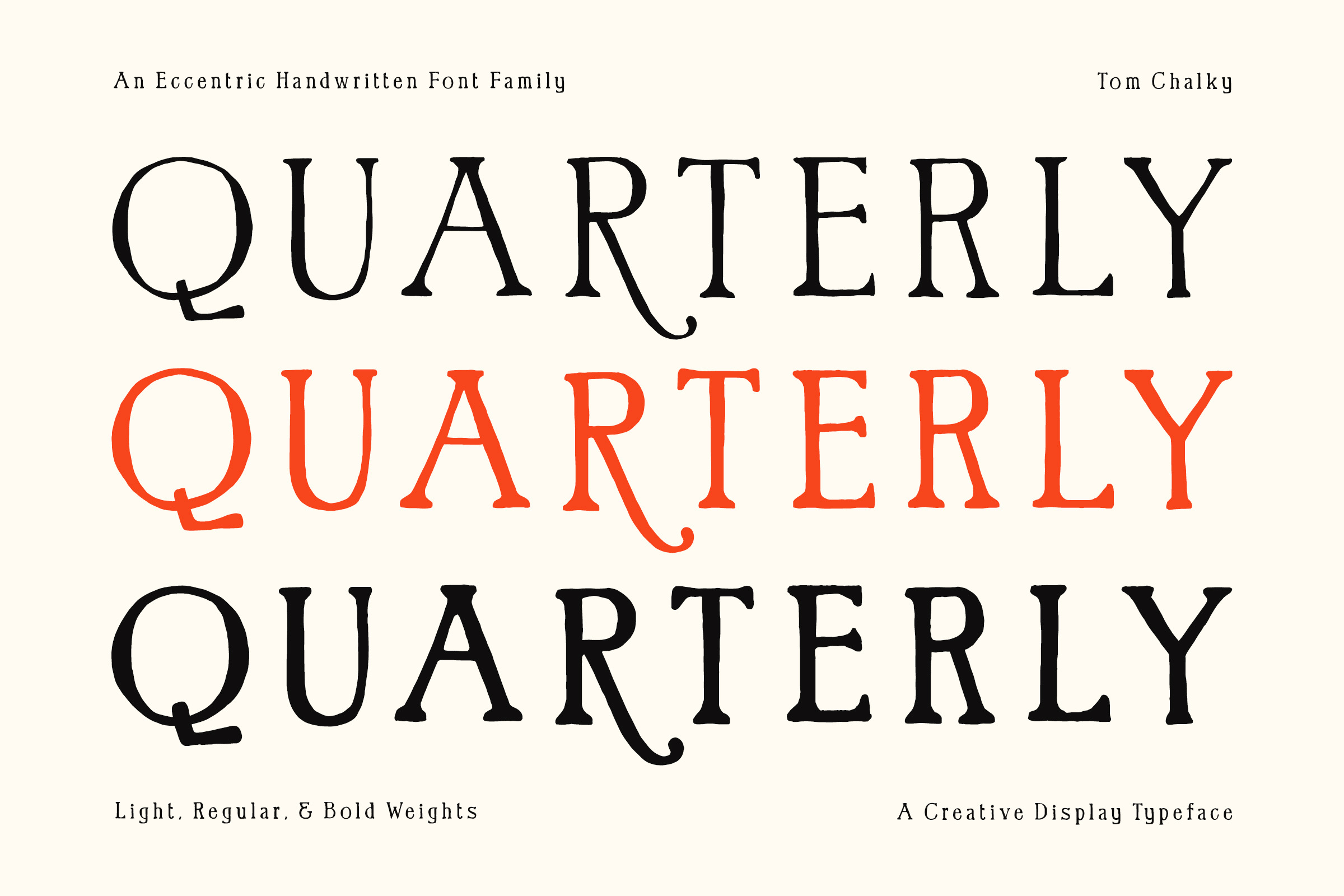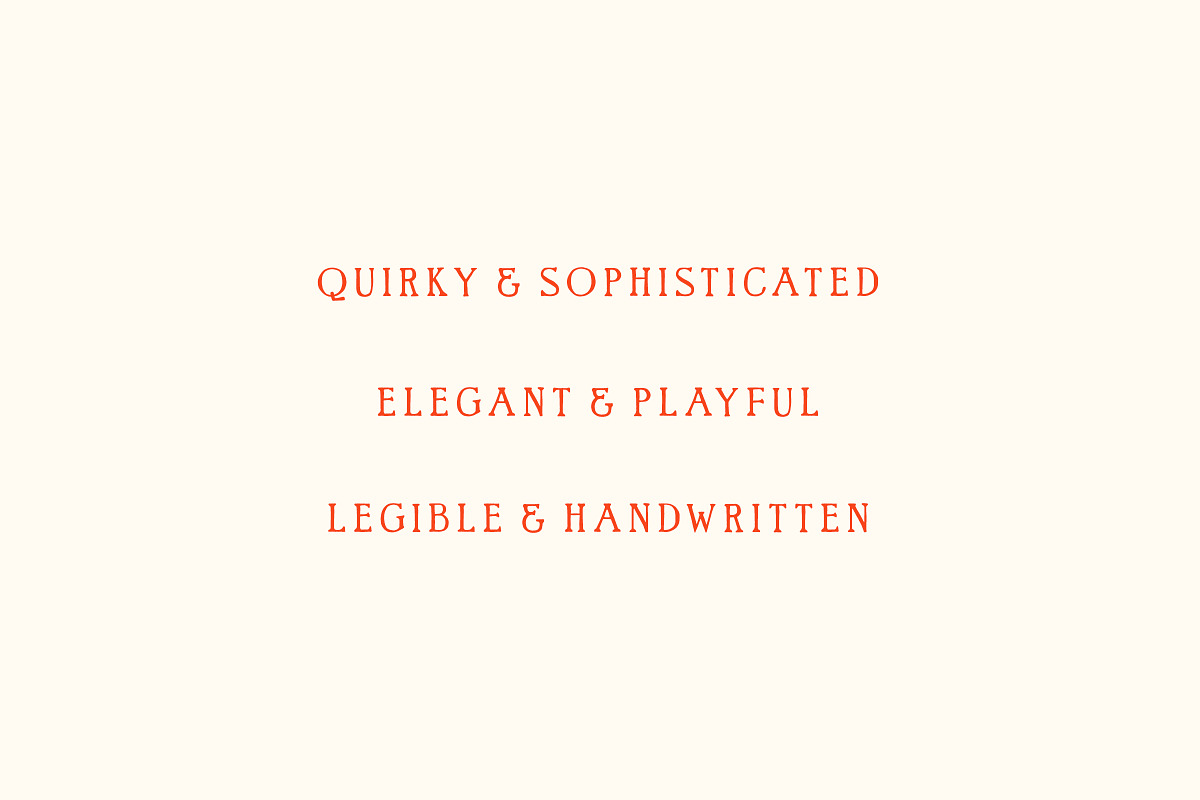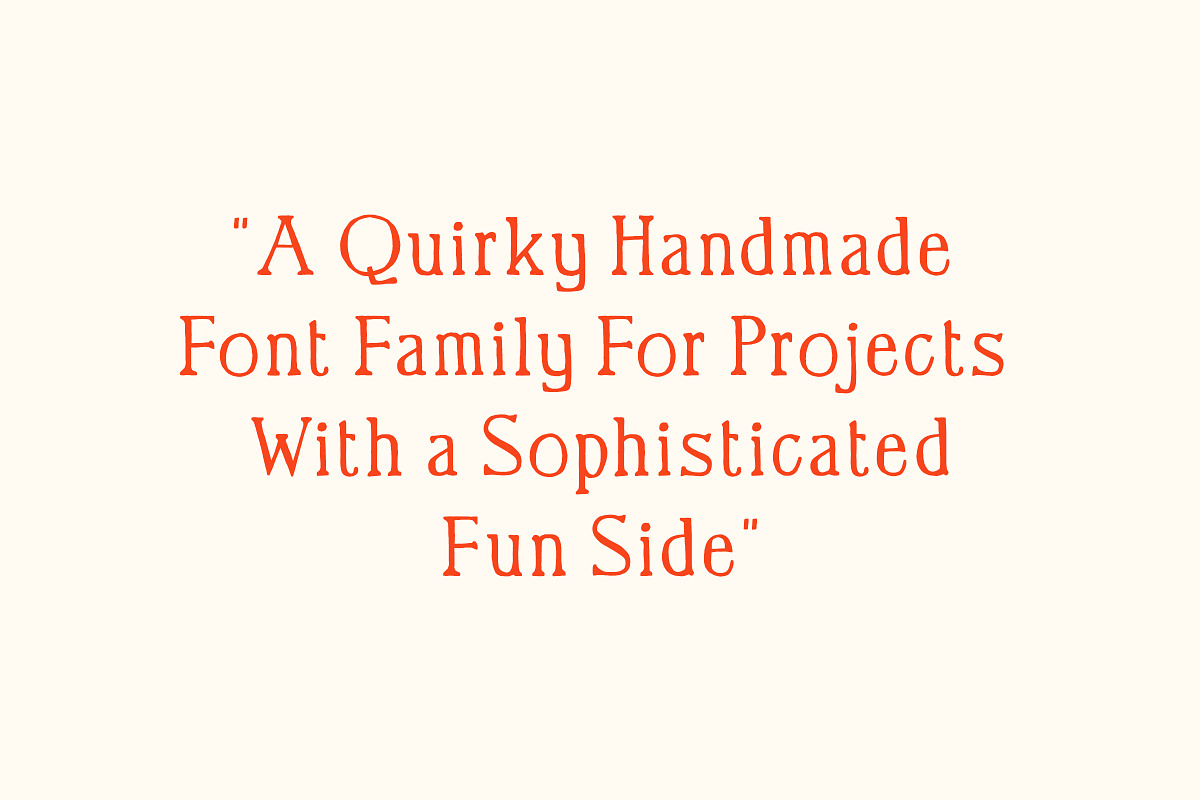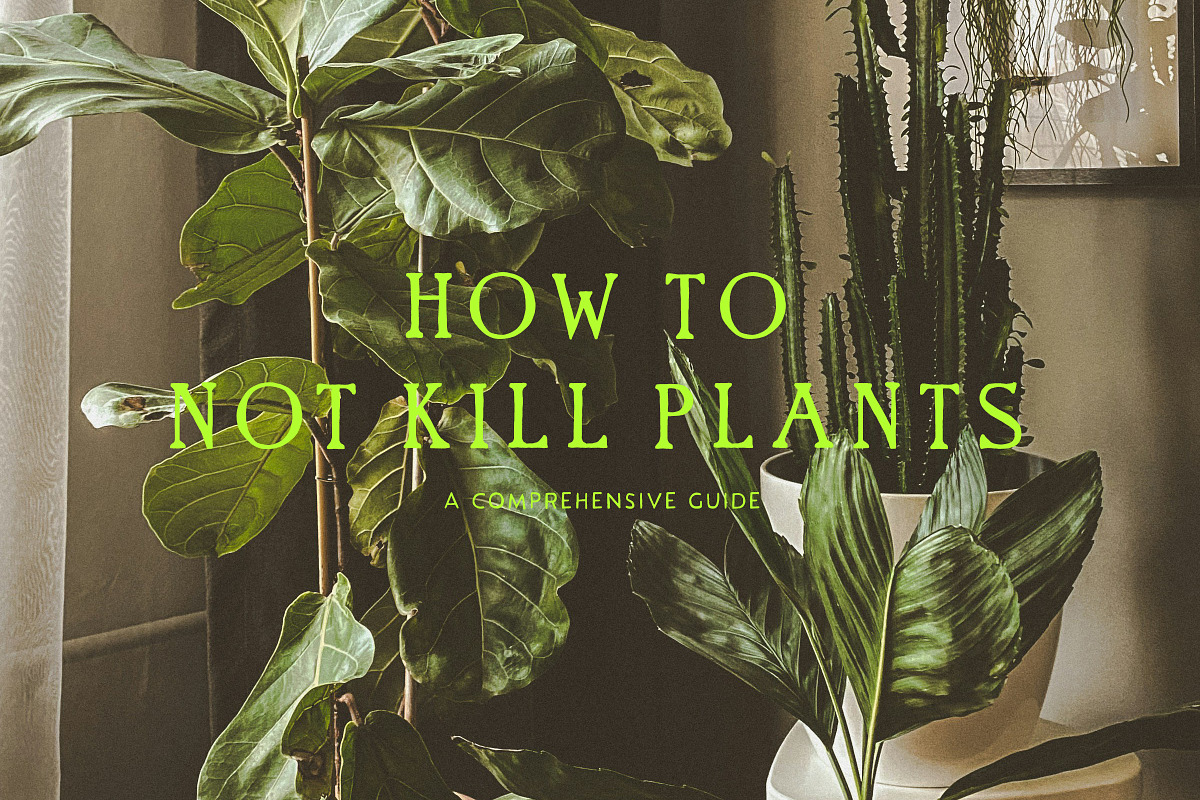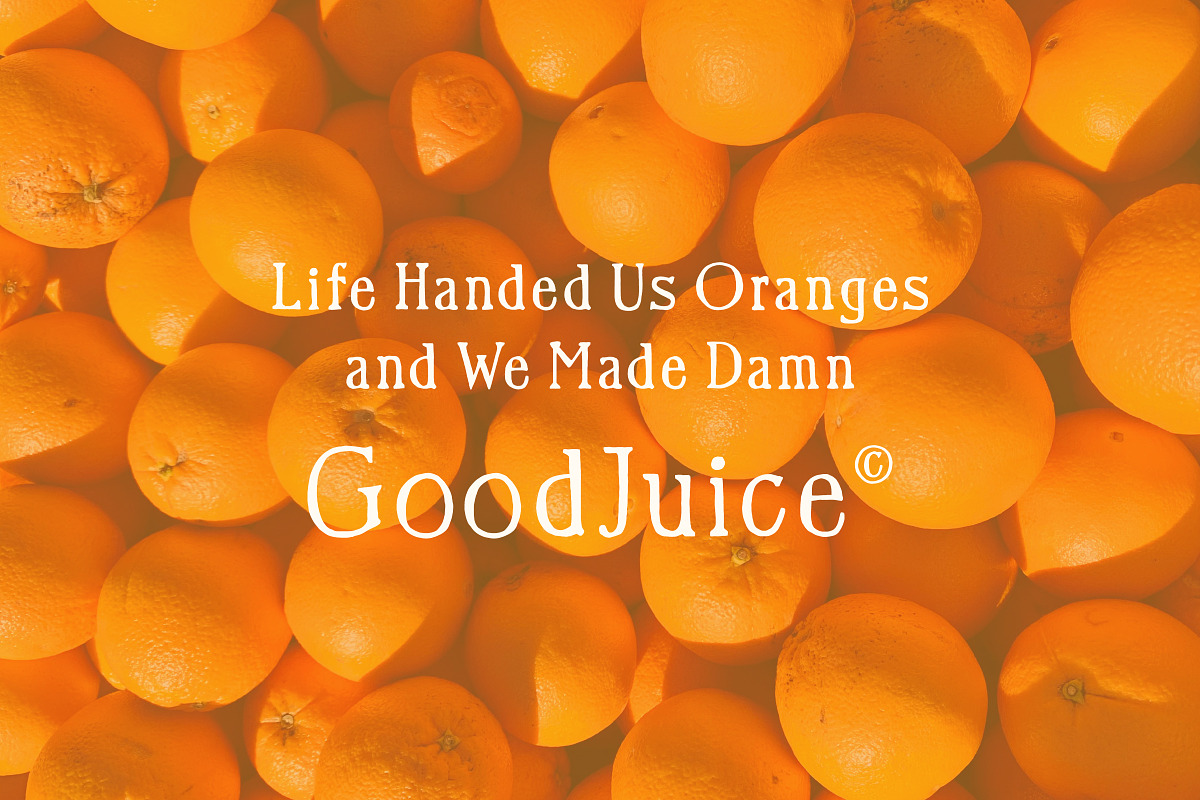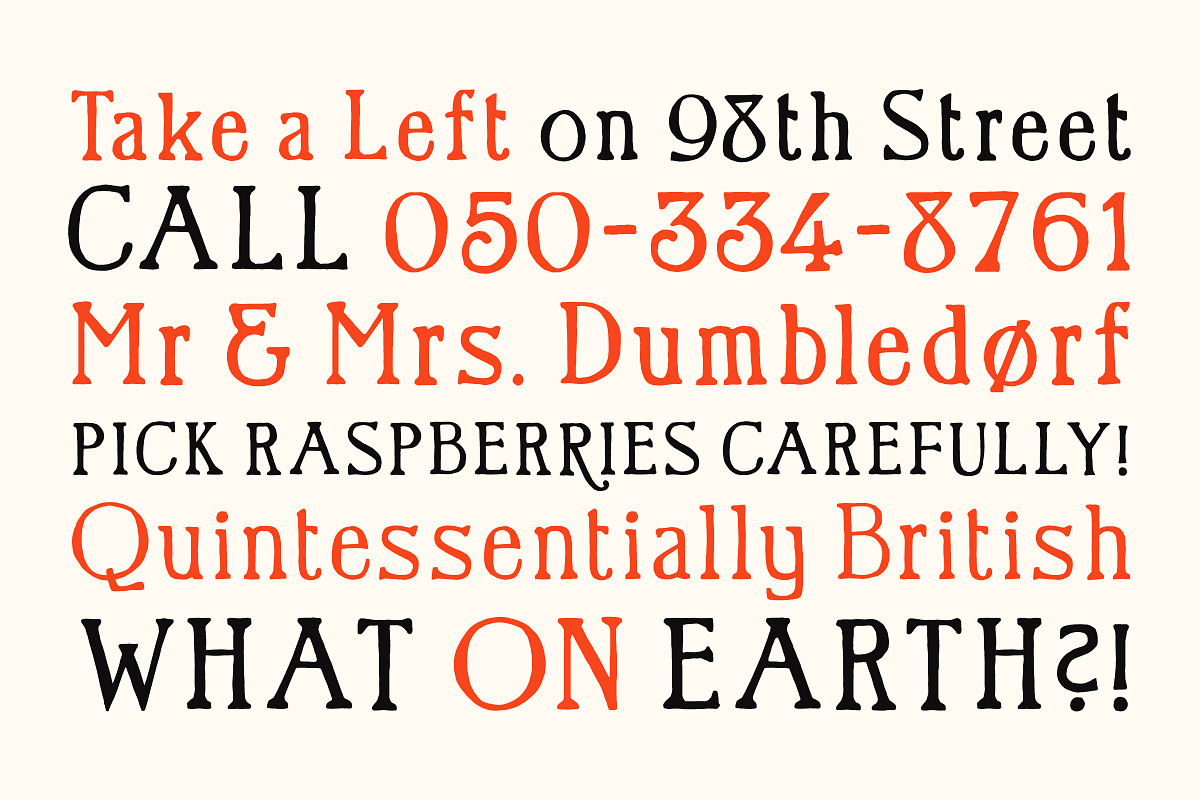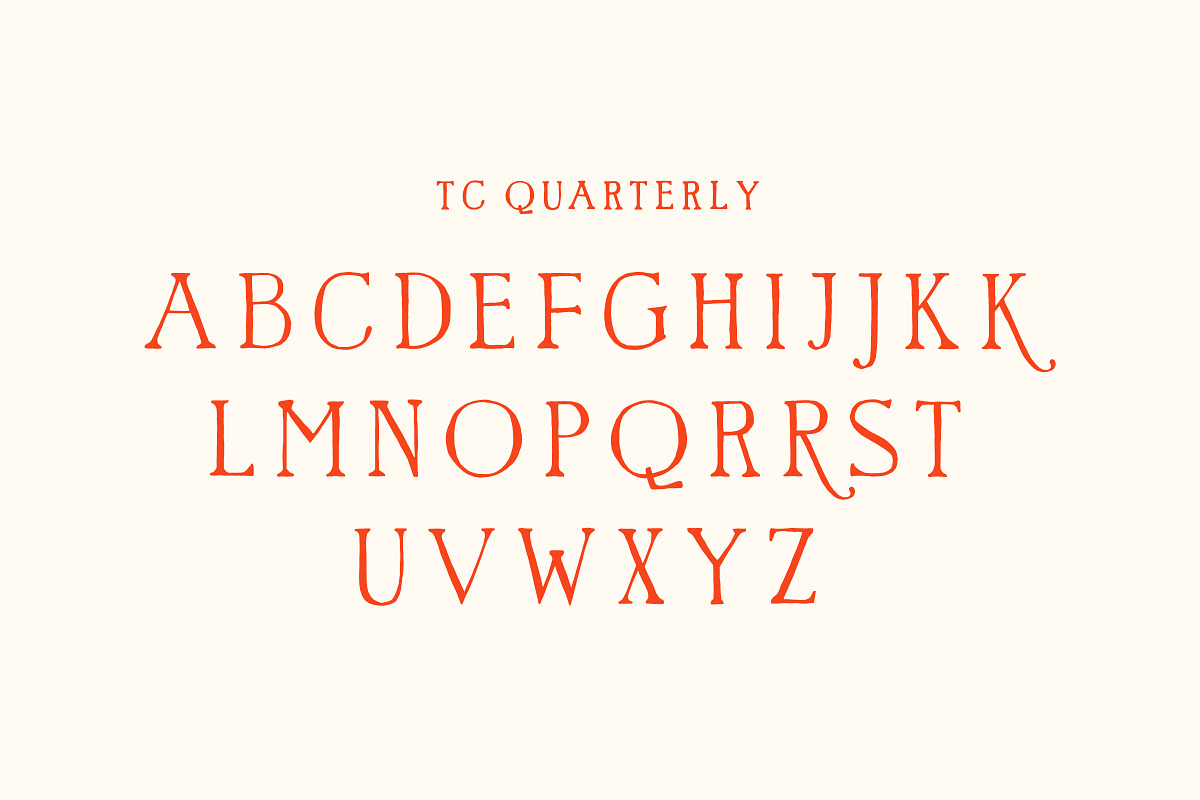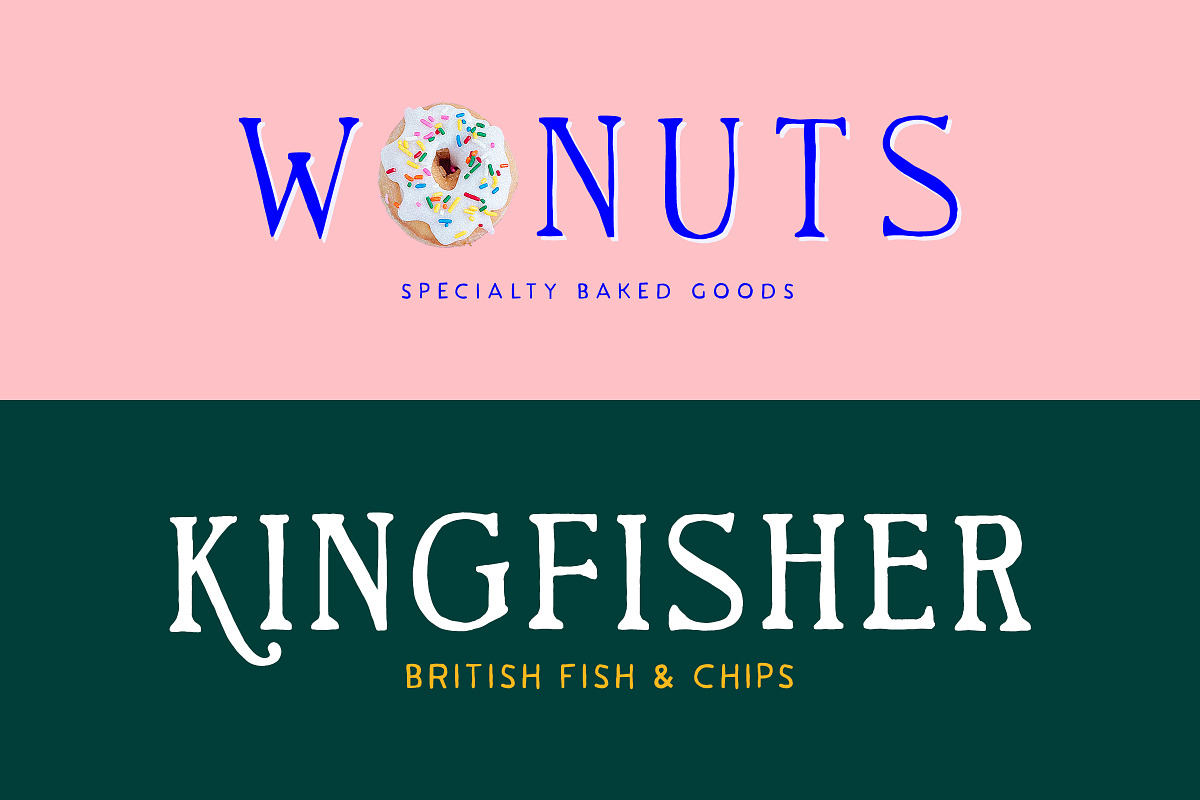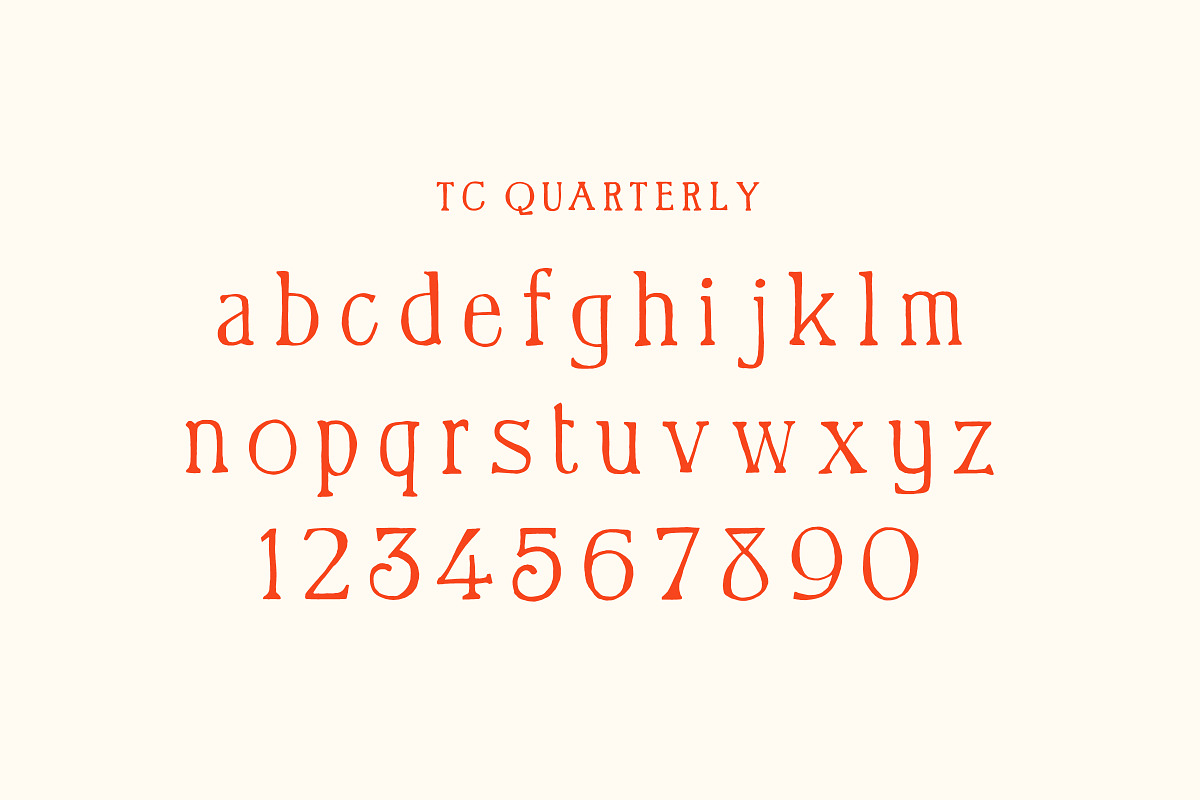
Quarterly - Quirky Handwritten Font
Introducing Quarterly: Discover the charm of my latest handwritten font family, where playful meets classic. With a robust character and slightly whimsical style, Quarterly is perfect for a spectrum of creative projects, from innovative branding to memorable book covers (Please. Someone use it on a book cover!).
Design Aesthetic: Quarterly boasts a distinctive handcrafted look with irregular, bold strokes, yet it still retains an air of classical elegance. The slight variations in letter shape and the bold, assertive curves make this font ideal for conveying personality and creativity.
Quick Overview:
- Light, Regular, and Bold Weights
- A full set of Fraction Numerals (Smaller numbers for little number jobs!)